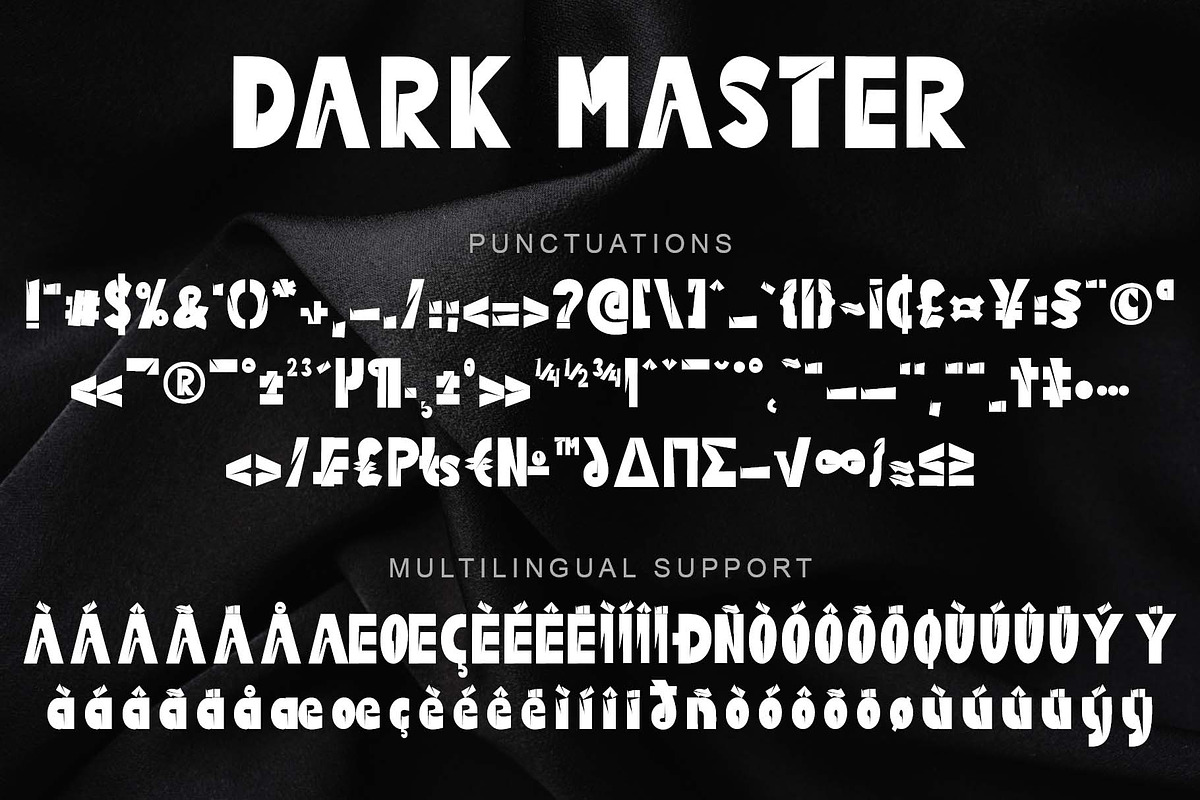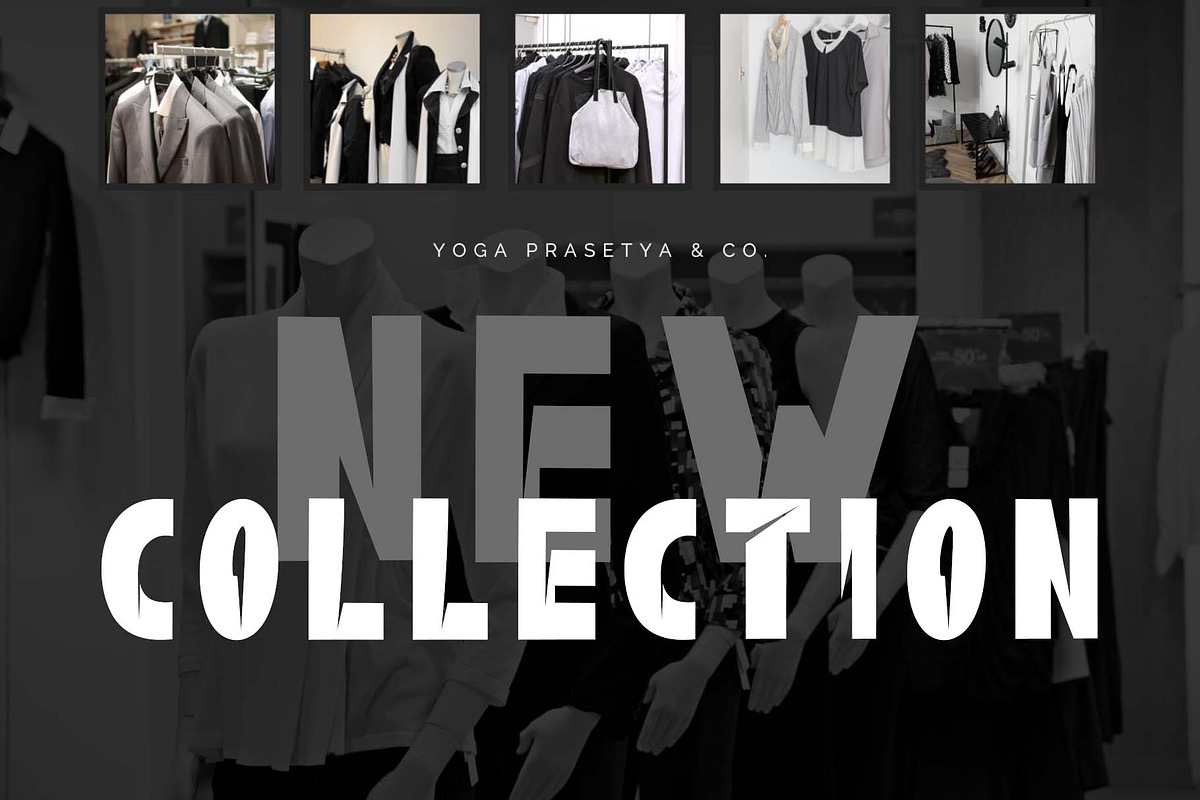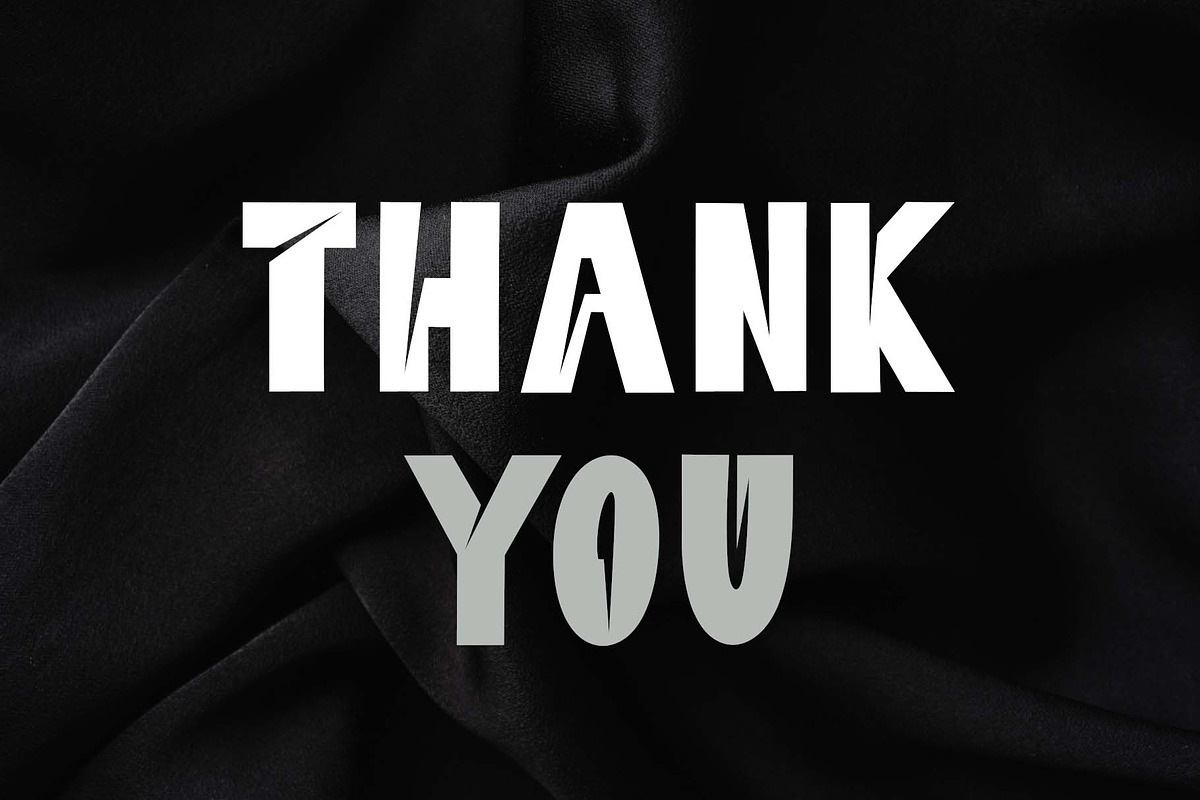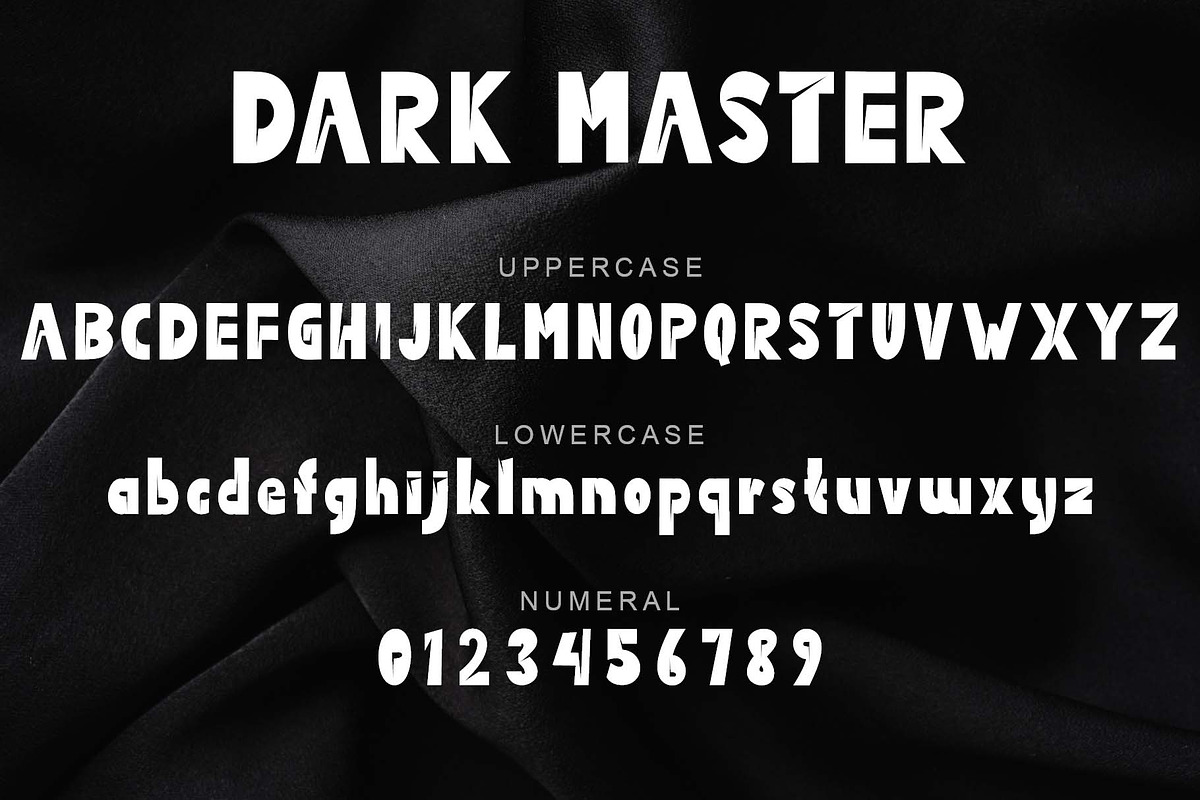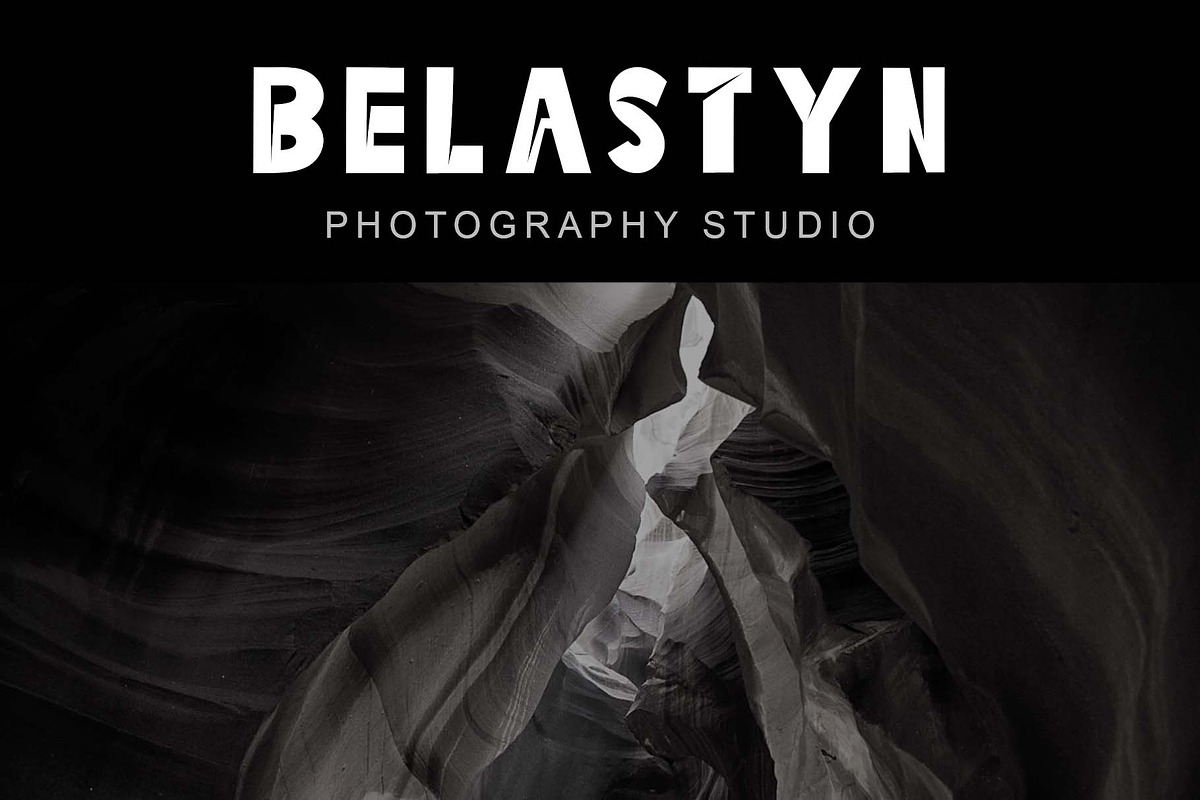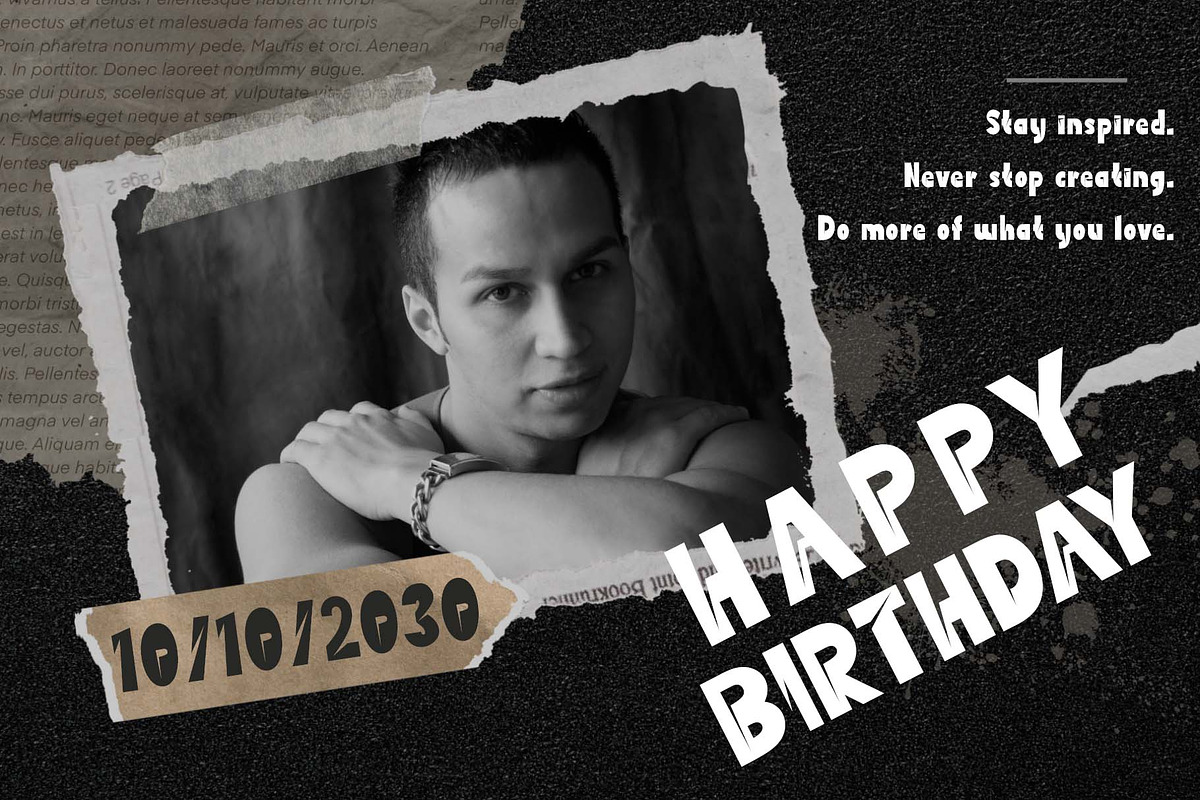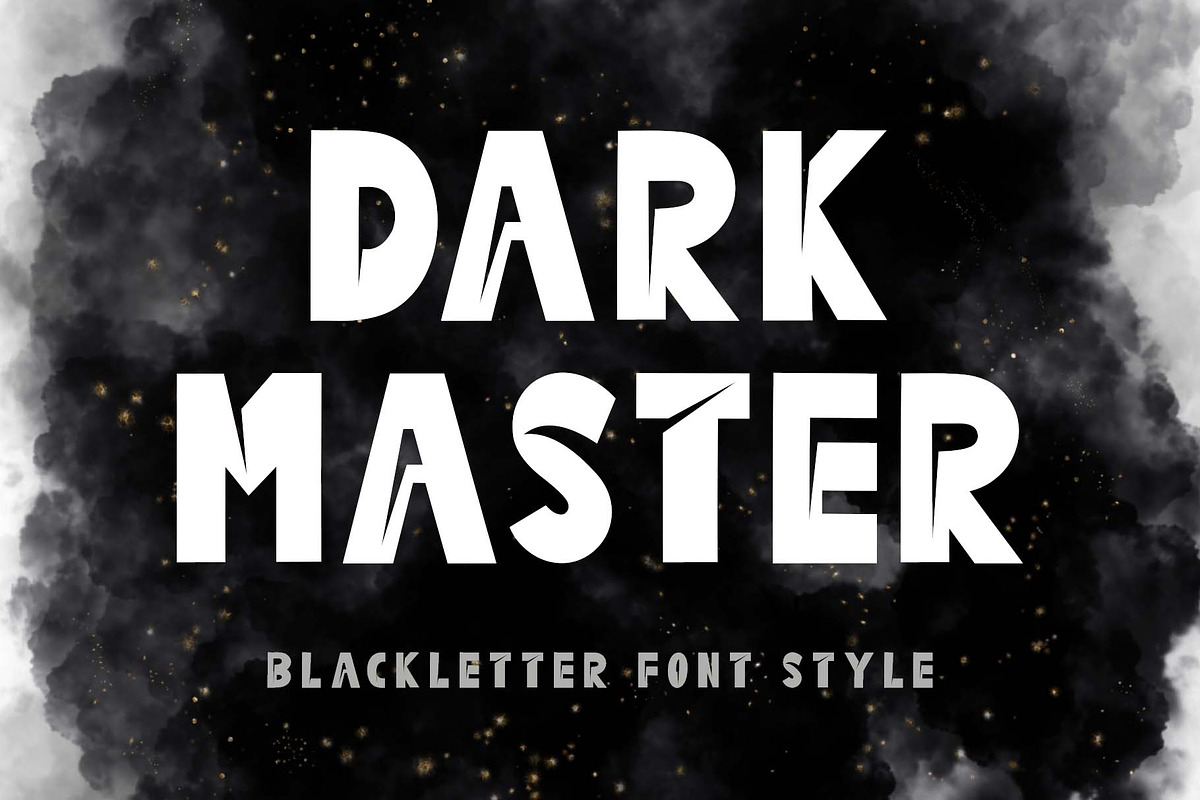
Dark Master
"Dark Master" is an elegant and modern blackletter font. This font is equipped with uppercase, lowercase, numerals, punctuations and multilingual support. Very suitable for posters, prints, banners, branding, stickers, logos, movie titles, book titles, vacations, adventures, fashion, photography and others.